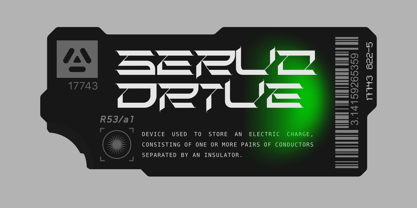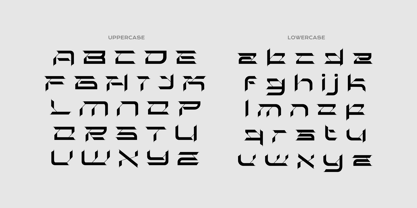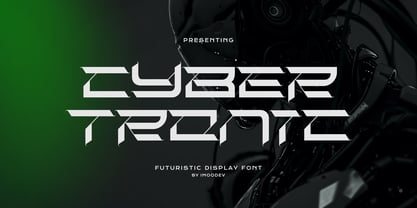
Cyber Tronic
by Imoodev
The Cyber Tronic Font Family was designed by Aulia Savira Putri and published by Imoodev. Cyber Tronic contains 1 styles. More about this family
Power up your designs with Cyber Tronic, a futuristic display font that embodies the cutting edge of technology and science fiction. Engineered with precision, this font features a wide, extended stance and sharp, angular letterforms that command attention.
Each character is meticulously crafted with a distinct, geometric structure, incorporating clean cutouts and negative space to create a high tech, stencil like aesthetic. Cyber Tronic is more than just a font, it's a complete toolkit for building a futuristic identity, giving you the versatility to create everything from complex UI/HUD elements to bold typographic posters.
Step into the future with Cyber Tronic and give your projects an unmistakable, cybernetic edge. It's engineered for cutting edge branding for tech startups, gaming companies, esports teams, and electronics brands. Perfect for designing striking sci-fi movie posters, immersive UI/HUD displays for video games, dynamic Twitch branding, and bold graphics for techwear apparel.
Designers: Aulia Savira Putri
Foundry: Imoodev